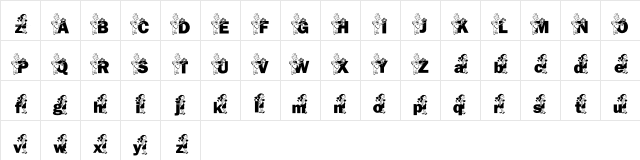
KATZVAL5_KG Regular
Design Context for KATZVAL5_KG Typeface
KATZVAL5_KG is a composed and adaptable typeface that performs quietly and consistently across a wide range of design contexts.